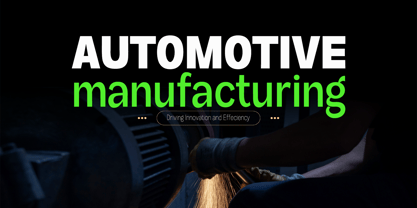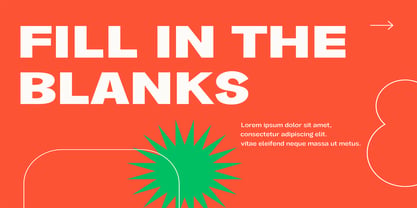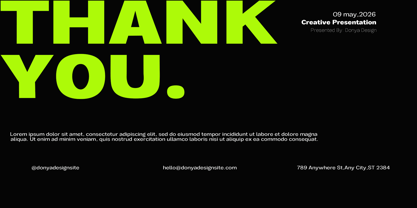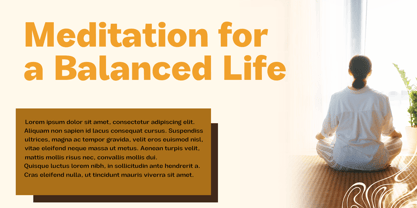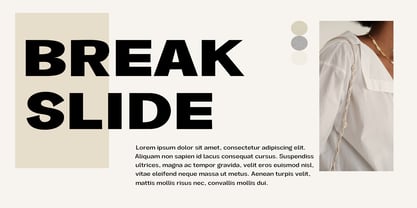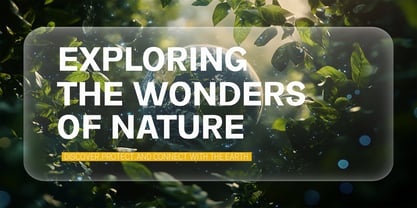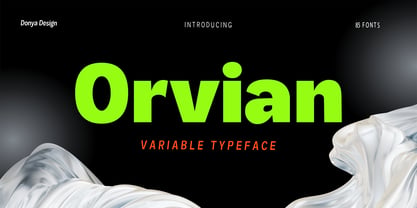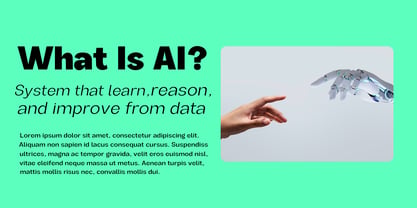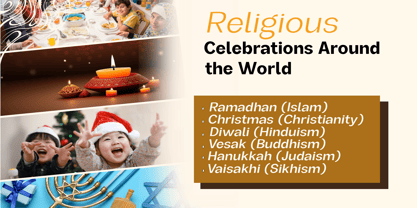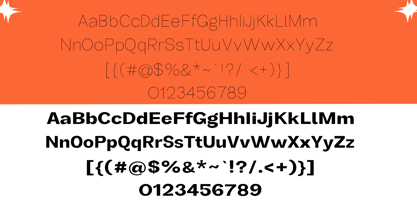
Orvian
The Orvian Font Family was designed by Teuku Muslyawan and published by DonyaDesign. Orvian contains 86 styles and family package options. More about this family
Orvian is a contemporary humanist sans serif font family that balances clarity, warmth, and versatility. Designed with refined proportions and open letterforms, Orvian provides excellent legibility in both print and digital environments. Its clean structure is softened by gentle humanist curves, creating a friendly yet professional tone suitable for branding, editorial layouts, UI design, advertising, and corporate communications. With 85 styles including Upright and Italic variants, Orvian offers a comprehensive range of weights and widths, enabling designers to easily build a strong typographic hierarchy. From bold headlines to subtle body text, this modern sans serif family adapts easily to both creative and commercial projects. Carefully designed spacing, balanced contrast, and crisp yet subtle details give Orvian a distinctive personality—sharp when you need precision, soft when you need friendliness.